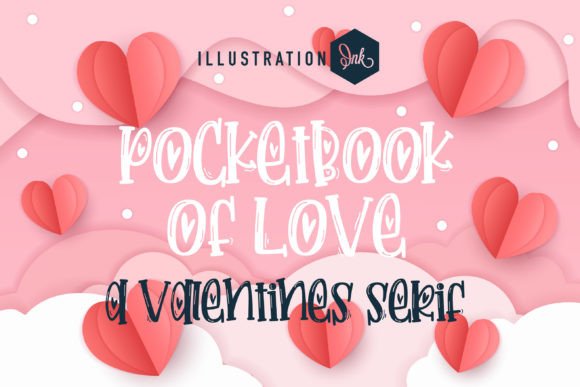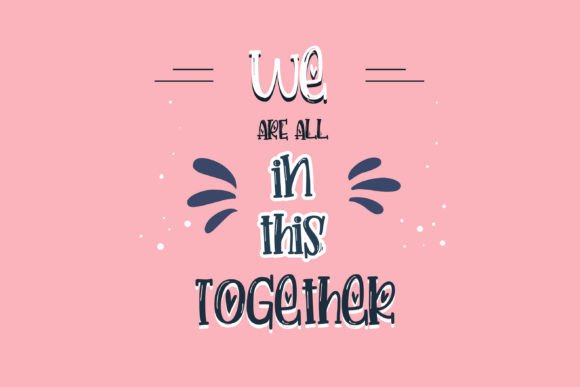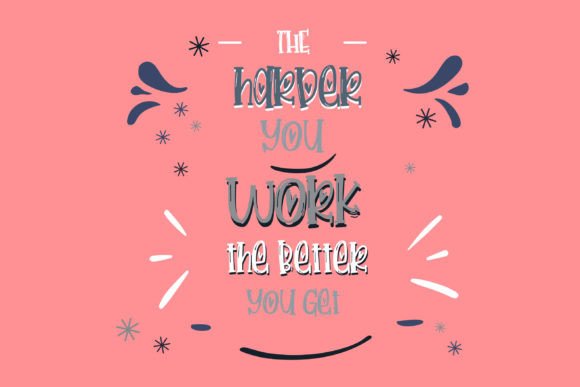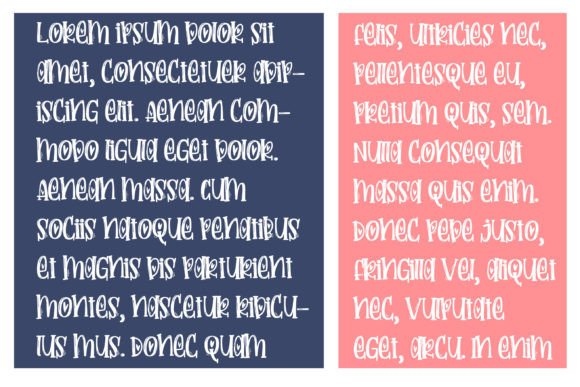
Pocketbook of Love Font: A Cute Serif for Valentines & Cricut Crafts
About the Pocketbook of Love Font
Elevate your designs with Pocketbook of Love Font, a font that combines sophistication with readability. This hand-crafted serif is an adorable print with dance lines and hearts.
Pocketbook of Love is designed to look like it was written by hand. It can be used for invitations, greeting cards, and other items.
Its playful, hand-drawn charm makes it ideal for projects requiring a touch of whimsy, such as wedding invitations, children’s books, or branding for artisan businesses. It excels in headlines, short text blocks, and decorative elements, adding a personal touch to packaging or logos. Avoid using it for large amounts of body copy; the handcrafted nature might lead to low readability in extended paragraphs.
Pocketbook of Love pairs well with clean sans-serif fonts like Open Sans for a balanced contrast, or a more geometric sans-serif like Futura for a modern feel. A delicate script font could enhance its romantic appeal for certain applications, while a simple, neutral serif like Garamond could provide a sophisticated counterpoint.
The font’s overall personality is undeniably friendly and romantic, radiating warmth and approachability. Its handcrafted quality makes it unsuitable for projects requiring a highly professional or corporate aesthetic.
Pocketbook of Love Font Usage Examples
Pocketbook of Love Font Example